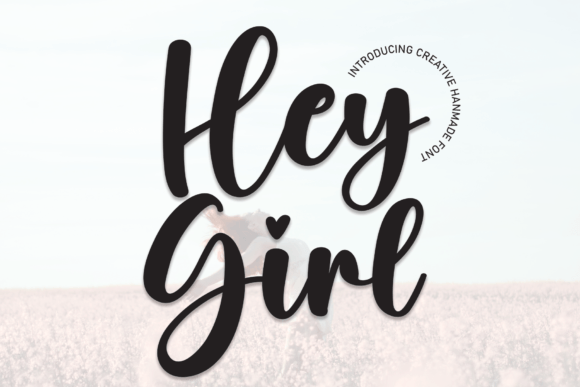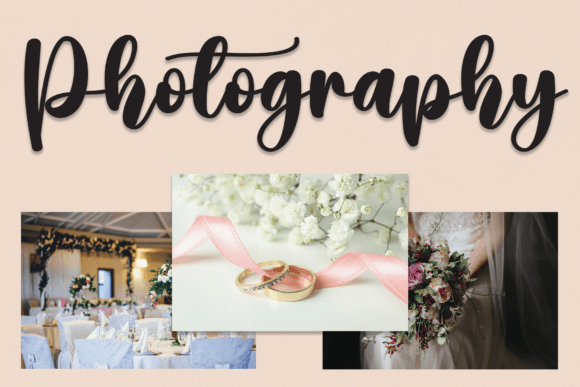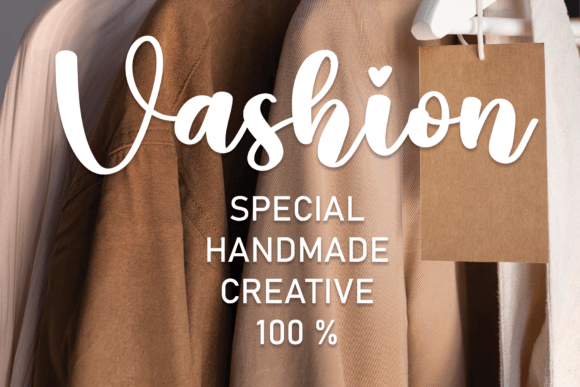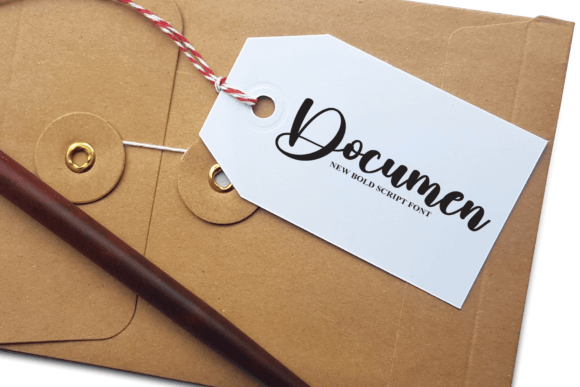
Introducing the Hey Girl Font, a beautifully crafted typeface designed to elevate your creative projects. Hey Girl is a sweet and cursive handwritten font. This gentle font will look gorgeous on a variety of design ideas. It will add a joyful and romantic touch to each of your projects!  Perfectly fit for branding, logo, wedding things, greeting cards, fashion, lookbook, marketing promotion, anytime you want to look fancy elegant but still casual.
Hey Girl’s playful, romantic style shines in headlines, short text blocks on invitations or greeting cards, and social media graphics. It’s ideal for branding projects needing a touch of feminine charm, such as boutiques, wedding stationery, or beauty products. However, its cursive nature makes it less suitable for body text or UI elements where readability is paramount. Avoid using it for lengthy paragraphs or dense content.
Pairing Hey Girl with a clean sans-serif like Montserrat or a modern serif like Lora creates a balanced aesthetic. For a more playful feel, consider a geometric sans-serif like Futura or a script font with a contrasting weight. These pairings provide visual interest and ensure legibility when used alongside Hey Girl’s flowing script.
The overall personality is undeniably feminine and friendly, conveying warmth and approachability. Its delicate curves and slightly informal character lend themselves perfectly to projects requiring a touch of sweetness and personality.